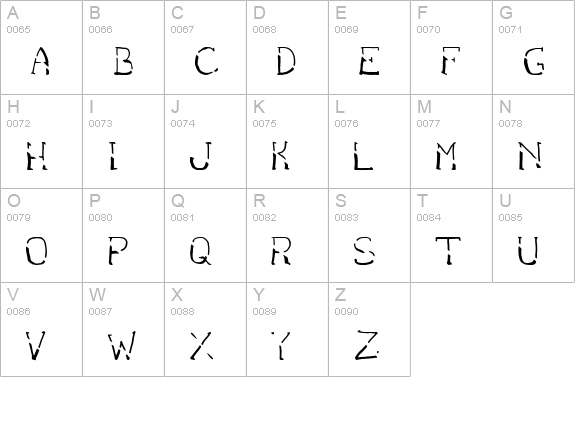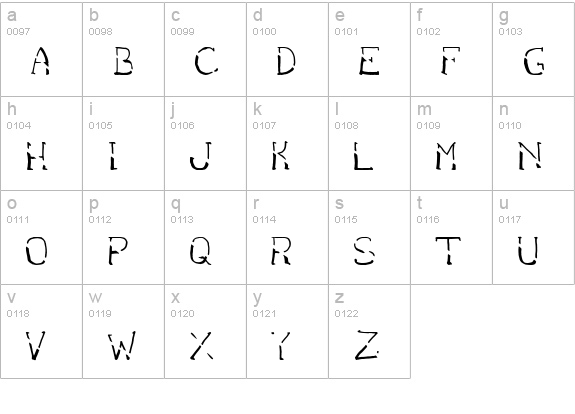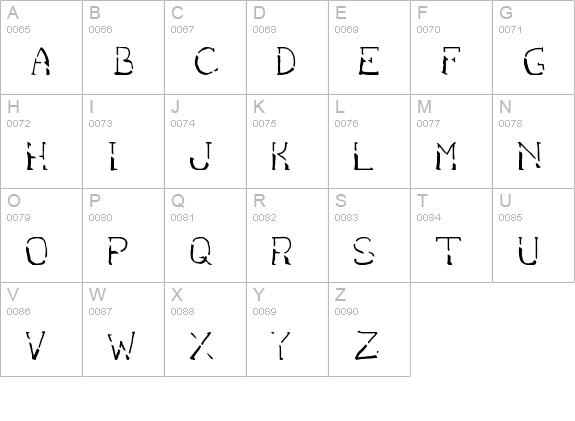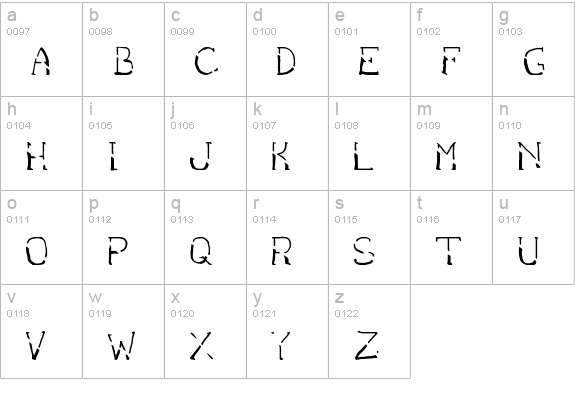
bantum caps is a free for personal use font in the Modern > Stencil category. It has been downloaded 12 times and is available for Windows, Mac and Linux.
Introducing Bantum Caps Font, a remarkable typeface that seamlessly combines elegance and versatility. This font is a true gem for designers, typographers, and creatives alike, offering a unique blend of sophistication and playfulness. Bantum Caps Font captivates with its refined, bold letterforms that exude a sense of confidence and charm. Its clean lines and balanced proportions make it ideal for a wide range of design projects, from brand identities and packaging to headlines and invitations. With its distinctive uppercase characters, Bantum Caps Font effortlessly captures attention and adds a touch of class to any composition. Each letter is meticulously crafted, ensuring a seamless flow and impeccable legibility at any size or weight. But what truly sets Bantum Caps Font apart is the fact that it is free. Yes, you read that right - this extraordinary font is freely available to download at FontsMarket.com. This means that you can elevate your designs with this stunning typeface without any cost. Whether you are a professional designer or a hobbyist, Bantum Caps Font offers you the opportunity to enhance your projects with a touch of sophistication, without breaking the bank. Its versatility allows it to shine in both digital and print media, making it a valuable addition to your font library. So why wait? Go ahead and experience the elegance and versatility of Bantum Caps Font today. Download it for free at FontsMarket.com and unlock a world of creative possibilities. Take your designs to new heights and make a lasting impression with this remarkable typeface.